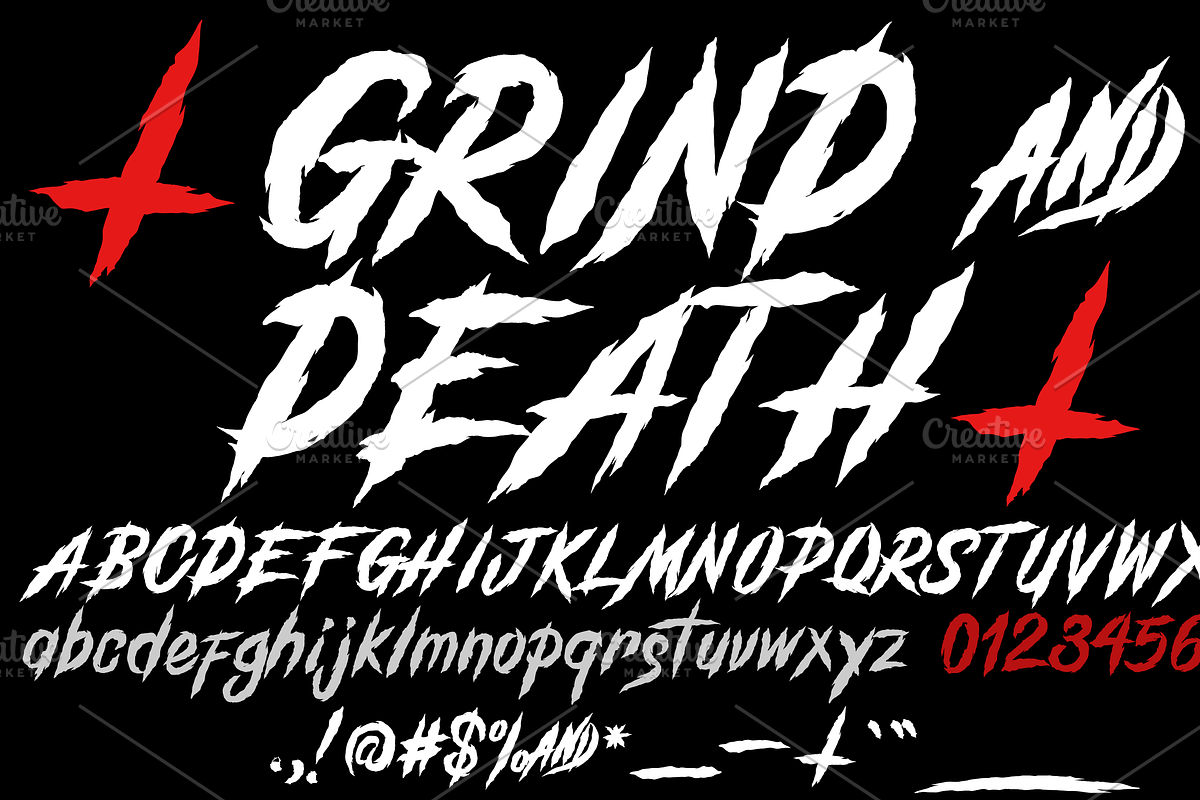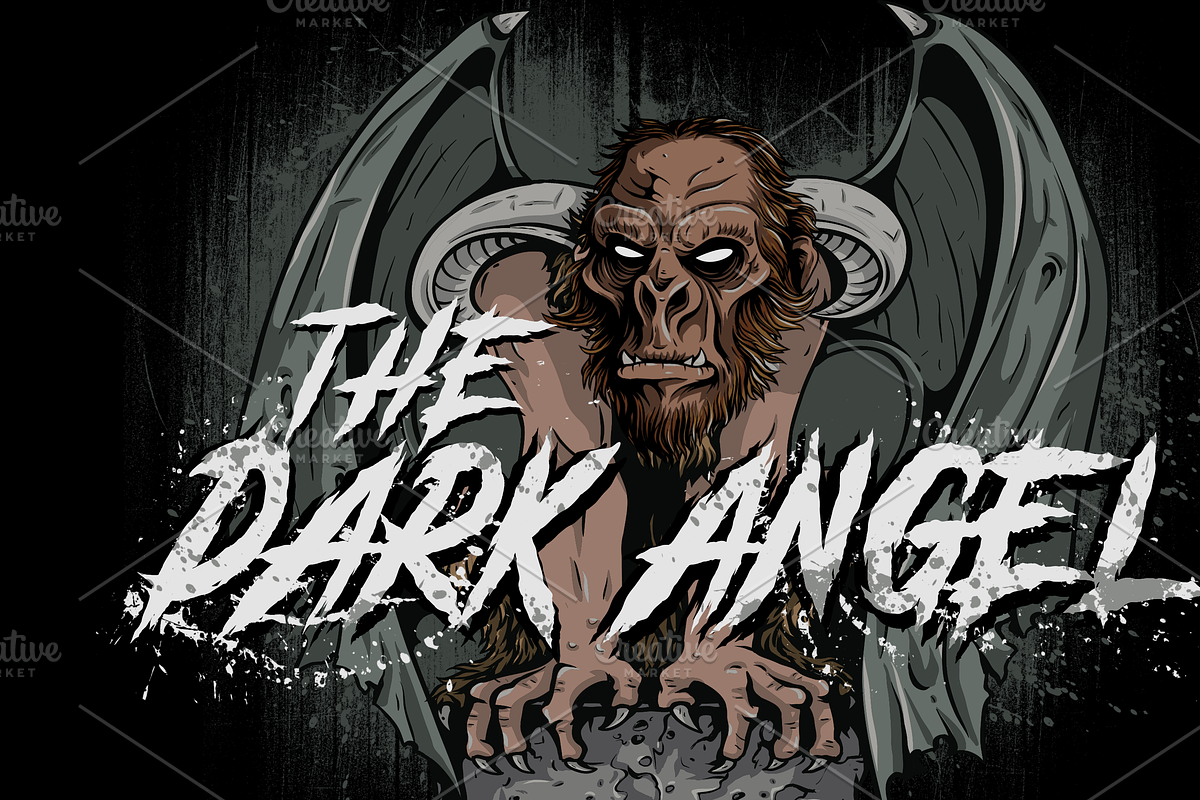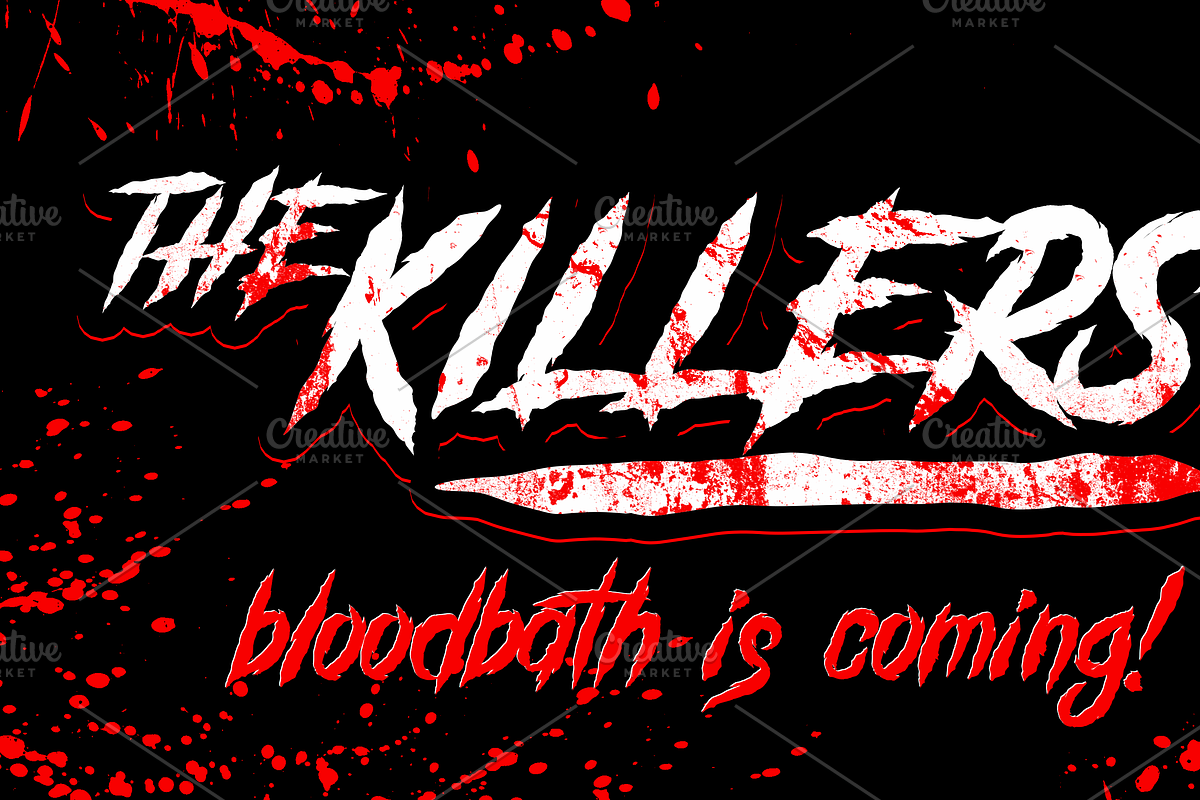
Grind and Death Typeface
GRIND AND DEATH TYPEFACE
Horror inspired font with special effects to make it more brutal perfect on your Horror Projects, branding, album cover, Logos, etc.
- Available in Uppercase, Numbers, Punctuations and Symbols.
Why Grind and Death Typeface is worth a look
Grind and Death Typeface by CCONCEPTLAB fits naturally into Branding, posters, packaging, typography.